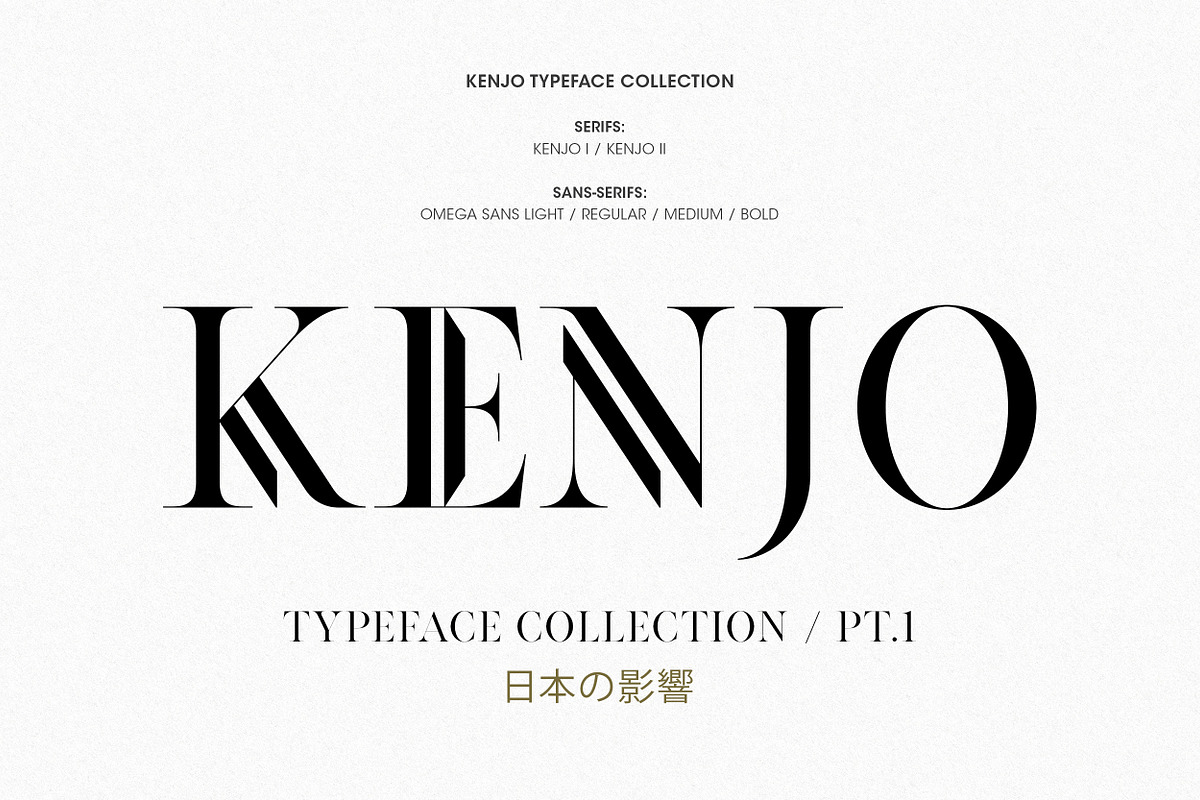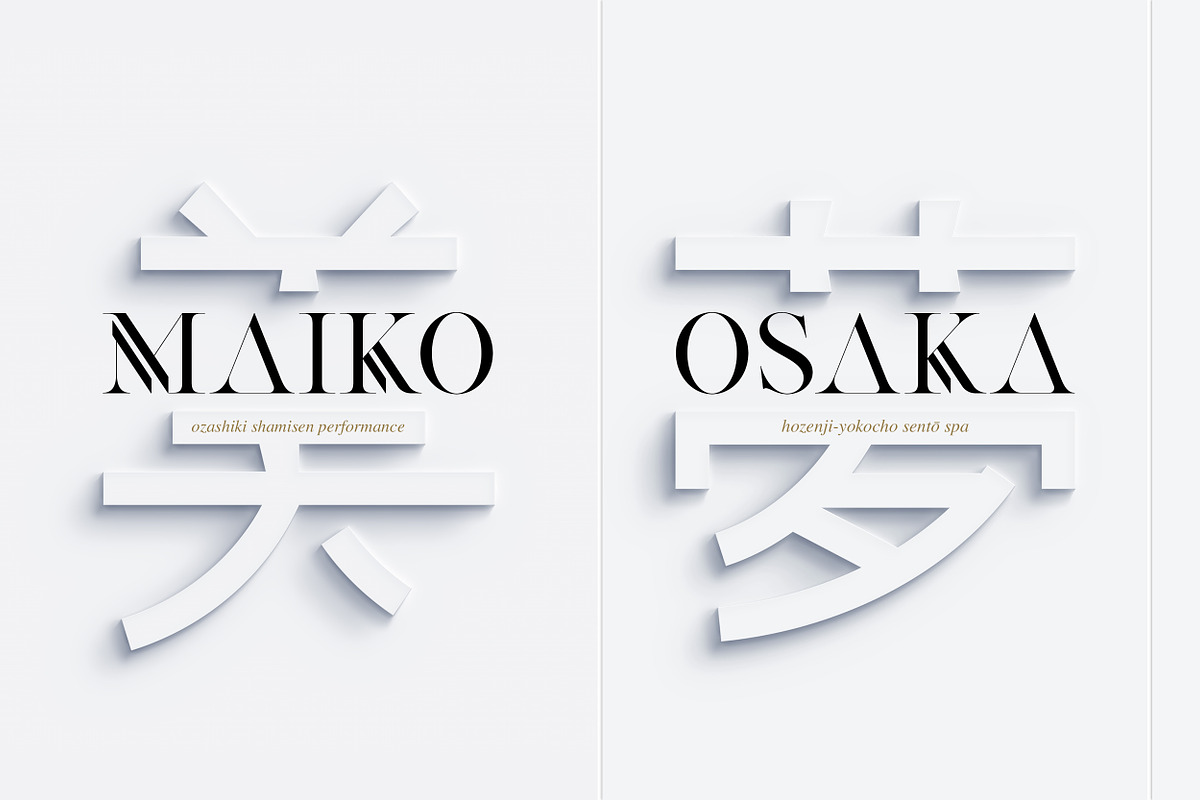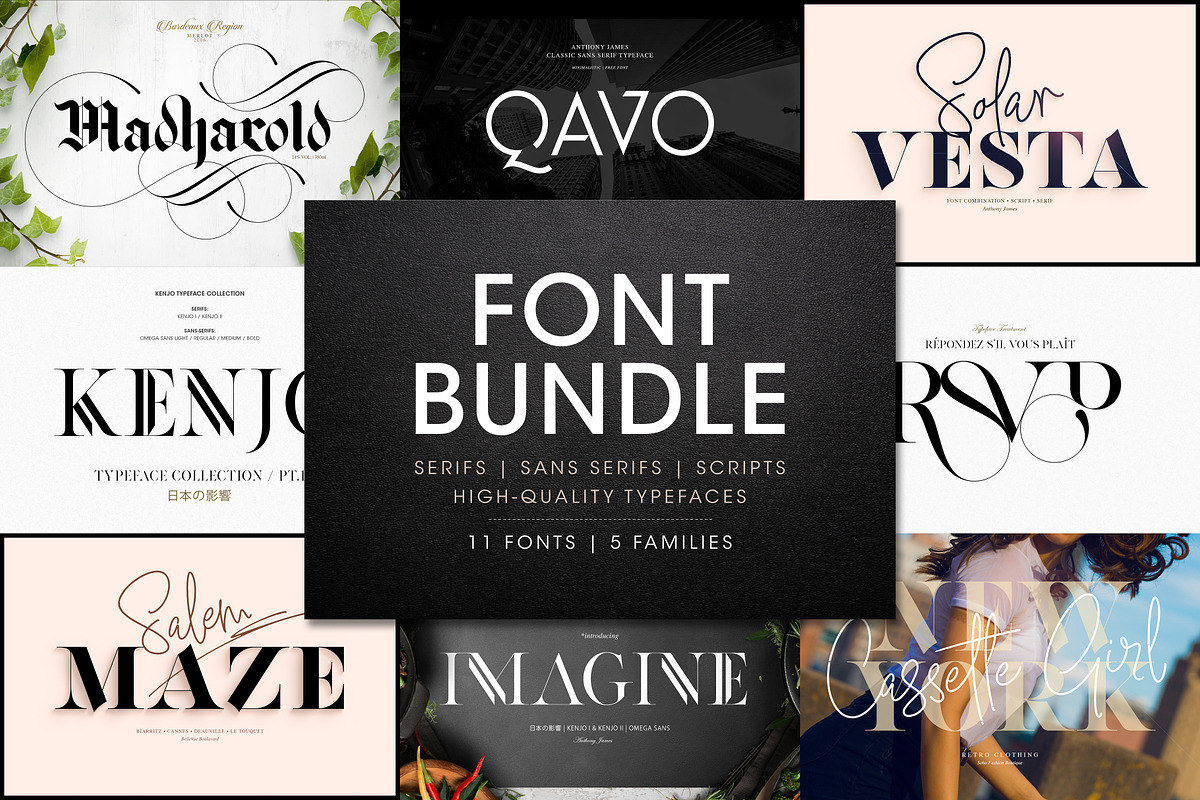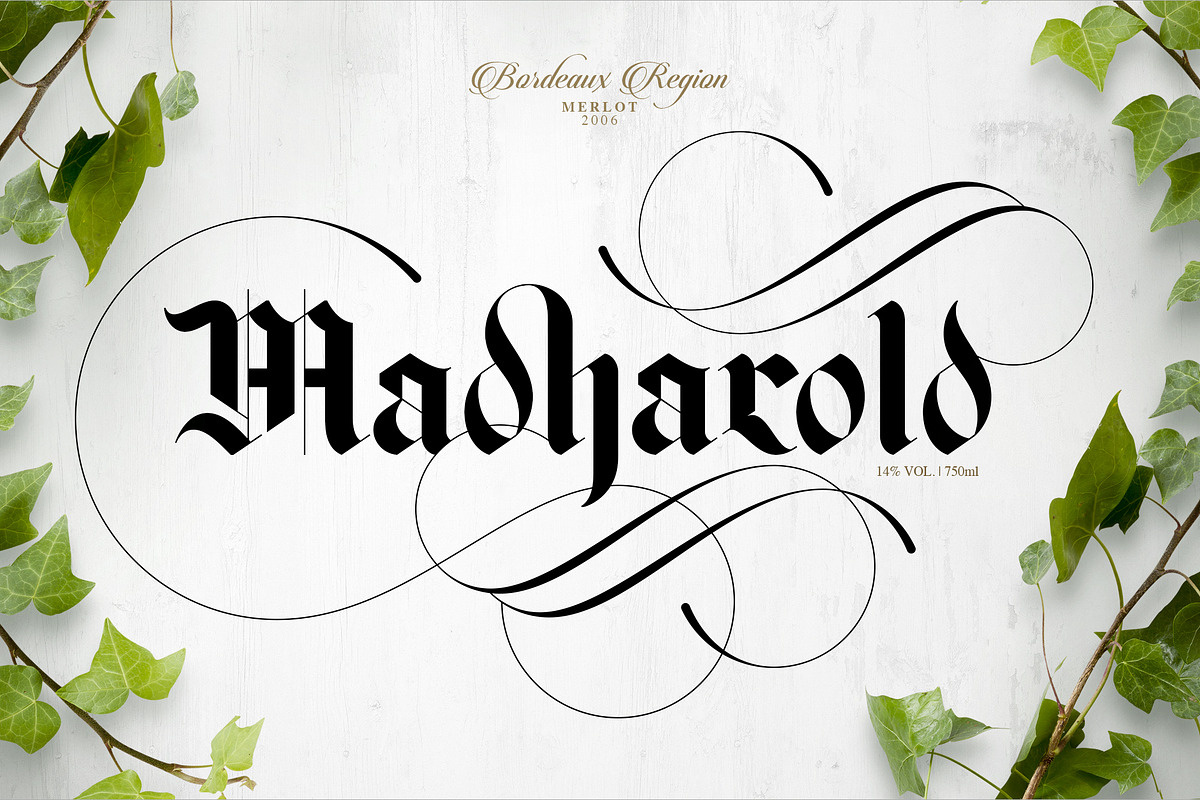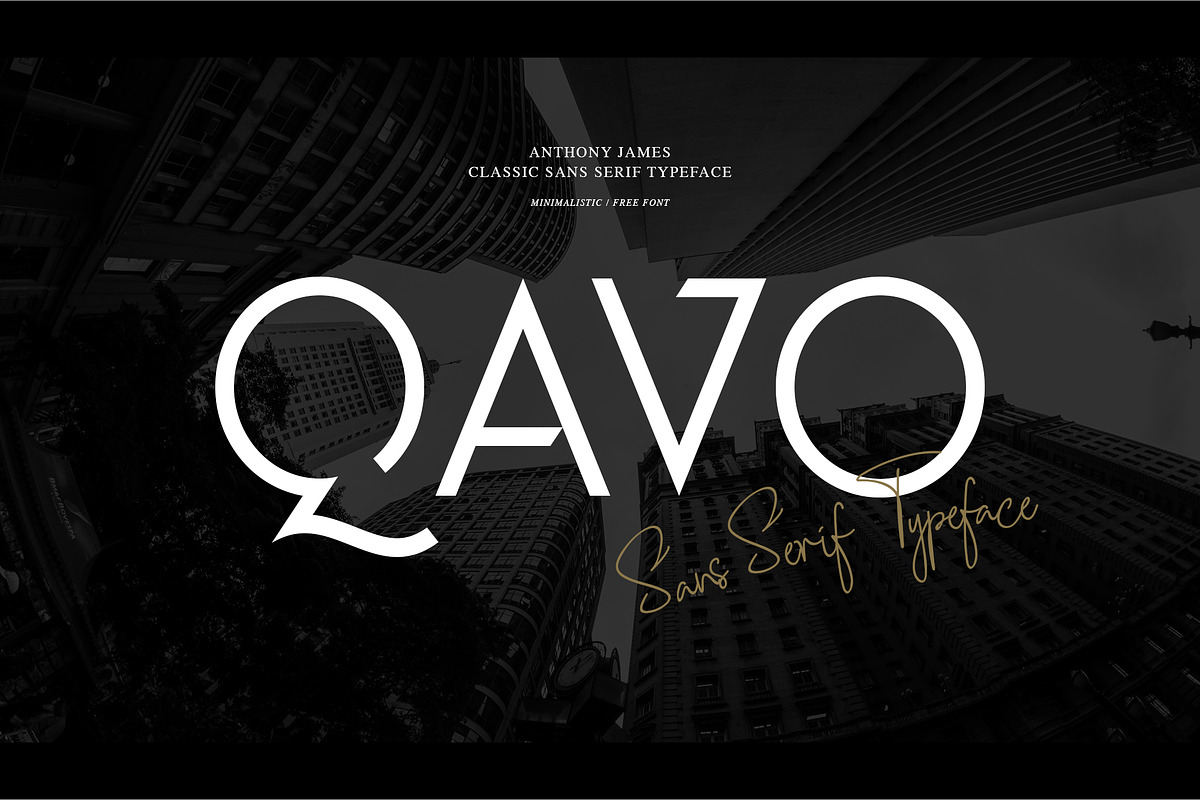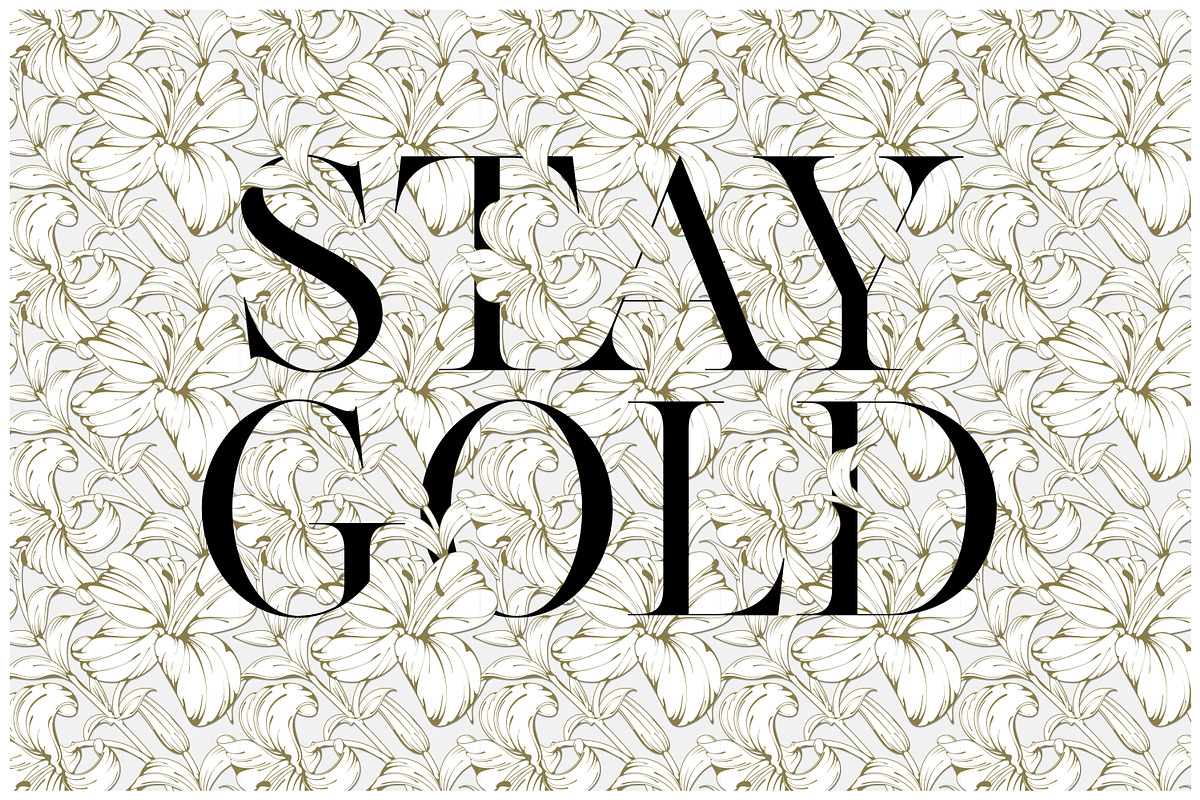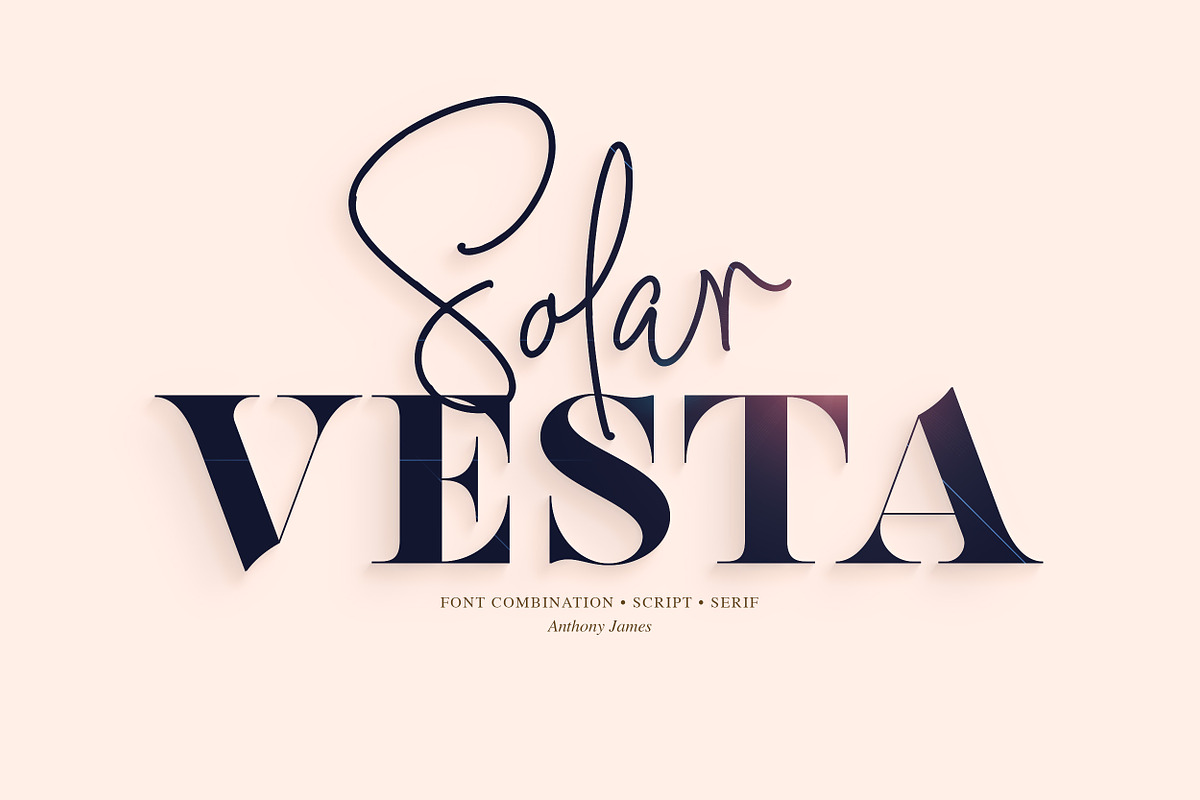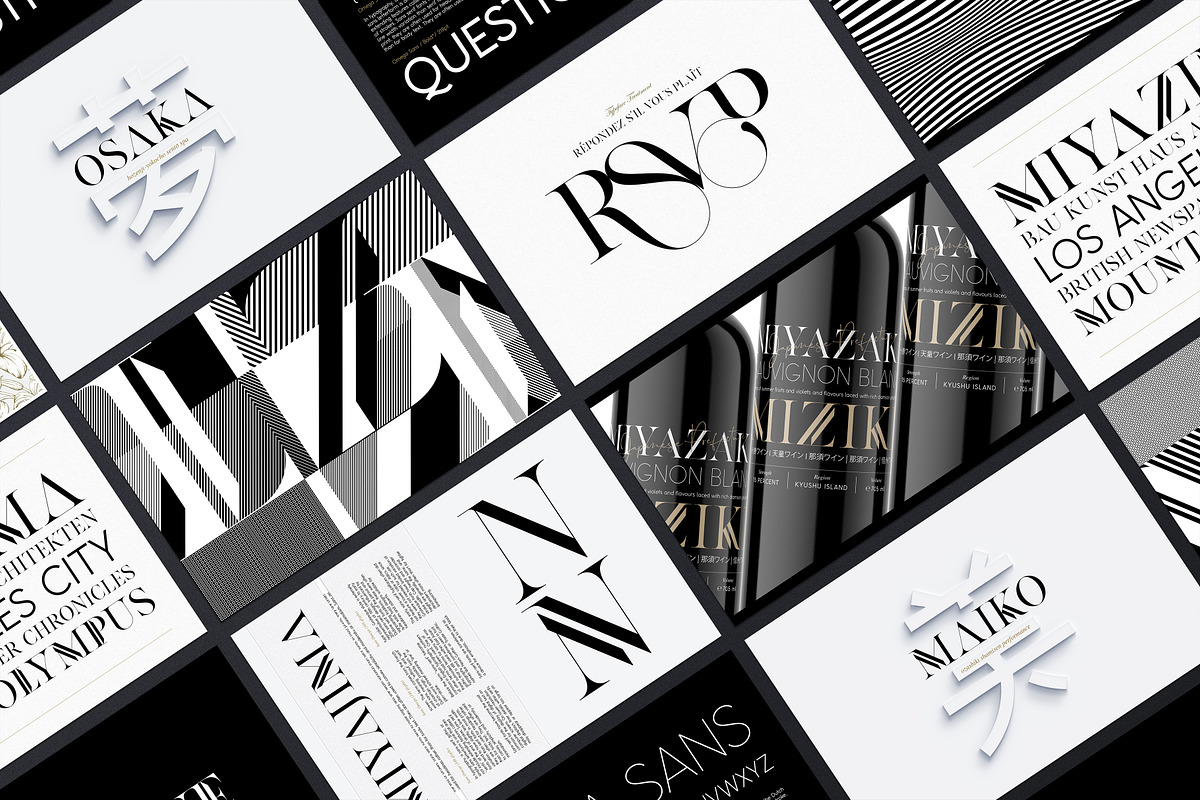
Premium & Well-balanced Digital Fonts
Optimised with minimal vector nodes for a sharper more refined finish
Perfect geometric Bézier curves applied via additional software
Thousands of geometrically balanced swashes | No distortion
Serifs | Sans Serifs | Display | Handwritten | Blackletter / Medieval
Massive discount, add a touch of elegance and sophistication to your font library with these well-balanced, premium typefaces. Housing a large array of weights and swashes, to cater to all occasions.
Omega Sans (light, regular, medium, bold)
Solar Vesta Script (127 ligatures)
Osgard Pro (over 1000 swashes)
Osgard Pro Information:
Selecting swashes for each character has been simplified to be more user friendly, and upto 23 swashes per character. With the Swash Icon in the Text Toolbar selected, simply type 'a1...a2....a23' and the software will run through each and every swash character available.